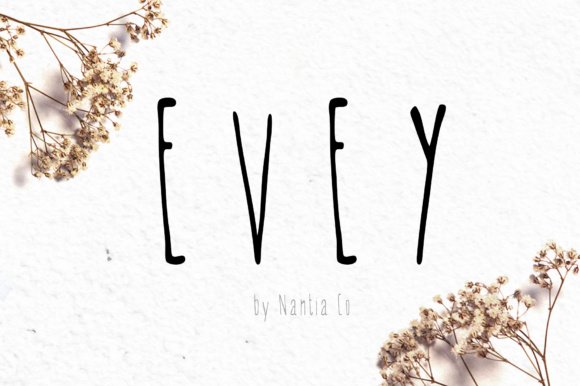
The Perfect Blend of Whimsy and Elegance: Evey Font
Have you ever been rummaging through a vintage store, stumbled upon an old typewriter, and felt an instant rush of creative energy? That’s exactly what happened to many designers when they laid eyes on the Evey Font. This crafty typeface exudes elegance, making it the perfect design tool for natural organic product packaging and branding.
Evey Font is more than just a stylish typography – it’s a versatile design solution that can be used in various creative projects. Its unique style lends itself perfectly to wedding invitations, making it an ideal choice for couples who want a cute and rustic touch. Pair it with handcrafted or recycled papers, and you’ve got an unforgettable wedding invitation that will leave a lasting impression.
Evey Font Key Features
- Font Family: Evey is a sans-serif font family designed for use in digital media.
- Unique Characteristics: Evey features a modern and clean design aesthetic, with a focus on readability and legibility.
Evey Font Review
Overall, I think Evey Font has a lot of potential, but it also has some areas where it falls short. ✨ One thing that stands out is the beautiful, elegant design of the font. It’s perfect for projects that need a touch of sophistication and luxury. The font is highly legible, even at small font sizes, which makes it a great choice for digital applications.
Here are some of the things that I like about Evey Font:
- ✨ Elegant and sophisticated design
- ✨ Highly legible, even at small font sizes
- ✨ Wide range of language support
- ⚠️ Limited font weights and styles
- ⚠️ Some users may find the font too ornate or over-the-top
- ⚠️ May not be suitable for projects that require a more modern or edgy feel
Overall, I think Evey Font is a solid choice for projects that need a touch of elegance and sophistication. However, it’s not the best choice for every project, and users should carefully consider their needs before choosing this font.
Evey Font is ideal for use in:
- Food and beverage labels
Remember to use Evey Font in conjunction with high-quality images and design elements to create a cohesive and visually appealing look.
Alternatives to Evey Font for Designers
Lato is a modern sans-serif font designed by Łukasz Dziedzic. It’s a versatile font suitable for various design projects, including corporate branding, advertising, and digital products.
Lato is similar to Evey Font in its clean and minimalist design, but it has a more geometric feel. It’s also more readable at smaller font sizes, making it a better choice for body text.
Montserrat is a sans-serif font designed by Julieta Ulanovsky. It’s a great choice for urban and modern designs, including fashion, technology, and travel branding.
Montserrat is similar to Evey Font in its sleek and modern design, but it has a more condensed feel. It’s also more suitable for headlines and titles due to its high x-height.
Arial Font
Arial is a sans-serif font designed by Robin Nicholas and Patricia Saunders. It’s a classic font suitable for a wide range of design projects, including corporate branding, advertising, and digital products.
Arial is similar to Evey Font in its clean and readable design, but it’s more traditional and less modern. It’s also more suitable for body text due to its high legibility.
Open Sans is a sans-serif font designed by Steve Matteson. It’s a highly legible font suitable for various design projects, including corporate branding, advertising, and digital products.
Open Sans is similar to Evey Font in its clean and minimalist design, but it has a more neutral feel. It’s also more suitable for body text due to its high readability and x-height.